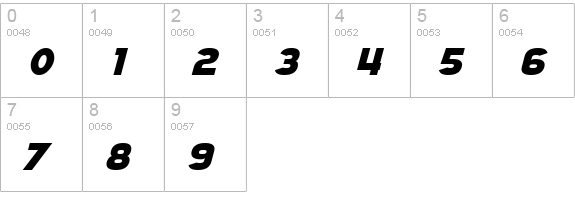
SF Juggernaut Condensed Italic Font Details
SF Juggernaut Condensed Italic is a distinctive, condensed-width, italic variant in the SF typeface family \xE2\x80\x94 well suited to design and typography projects.
SF Juggernaut Condensed Italic is a sleek and modern font that exudes power and strength. Its condensed form adds an extra level of intensity, making it perfect for captivating headlines and attention-grabbing designs. With its italic style, this font carries a sense of movement and dynamism, allowing it to effortlessly convey a message of momentum and progress. The Juggernaut Condensed Italic font is designed with precision, featuring clean lines and sharp angles that create a bold and assertive look. Its distinctive letterforms and unique curves give it a distinctive edge, setting it apart from other fonts in its category. One of the best things about SF Juggernaut Condensed Italic is that it is free to download at FontsMarket.com. This means that designers, artists, and creatives can freely explore the endless possibilities that this font offers without any limitations. Whether you need it for personal or commercial use, this font is readily available for you to unleash your creativity. The versatility of SF Juggernaut Condensed Italic makes it suitable for a wide range of design projects. It can be used in digital and print media, such as posters, logos, banners, websites, and more. Its bold and eye-catching appearance ensures that your message will stand out, leaving a lasting impression on your audience. In addition to its aesthetic appeal, SF Juggernaut Condensed Italic is also highly legible, ensuring that your text is easily readable in any context. Its careful spacing and balanced proportions make it a great choice for body text as well, providing a harmonious and cohesive visual experience. Experience the power and flexibility of SF Juggernaut Condensed Italic by downloading it for free at FontsMarket.com. Unleash your creativity and elevate your design projects with this captivating and versatile font.